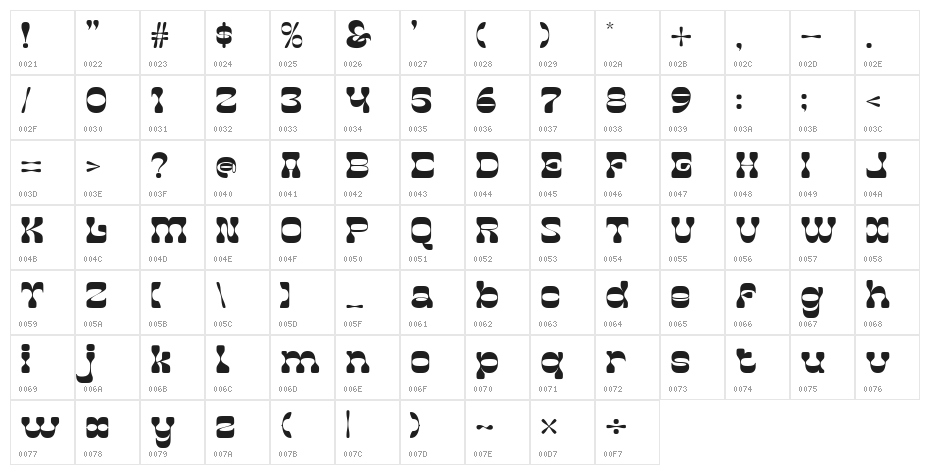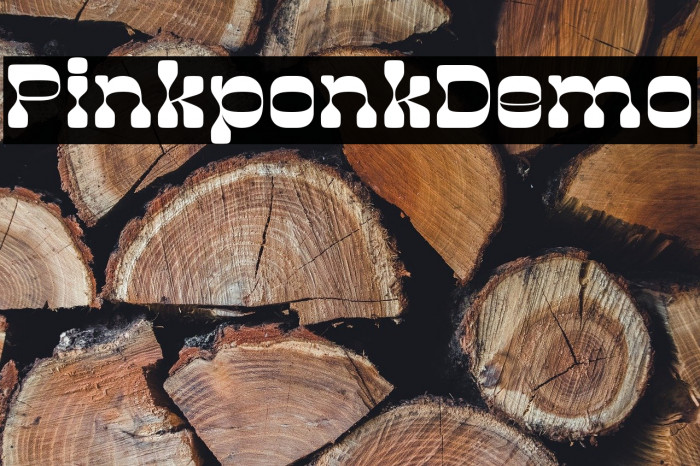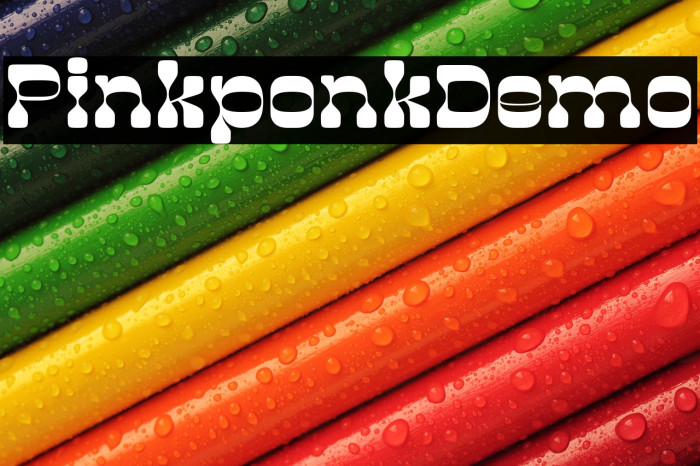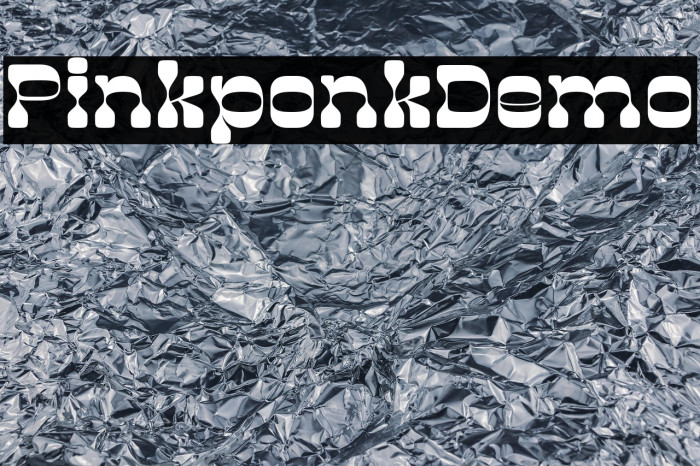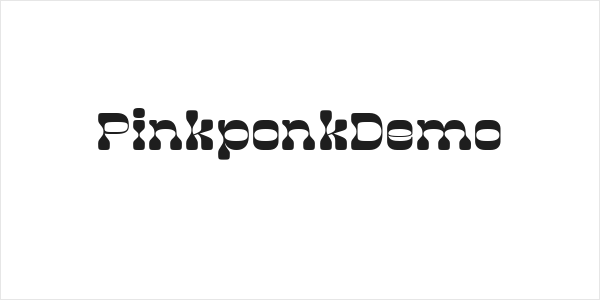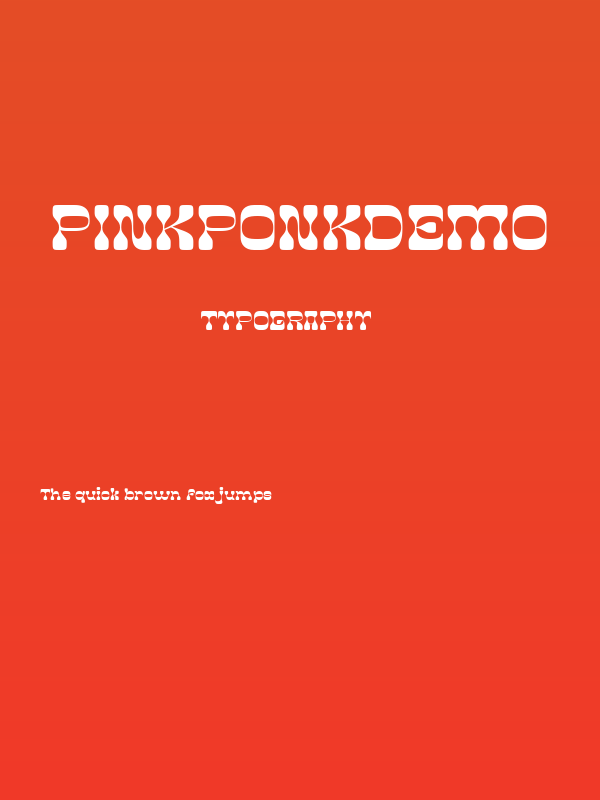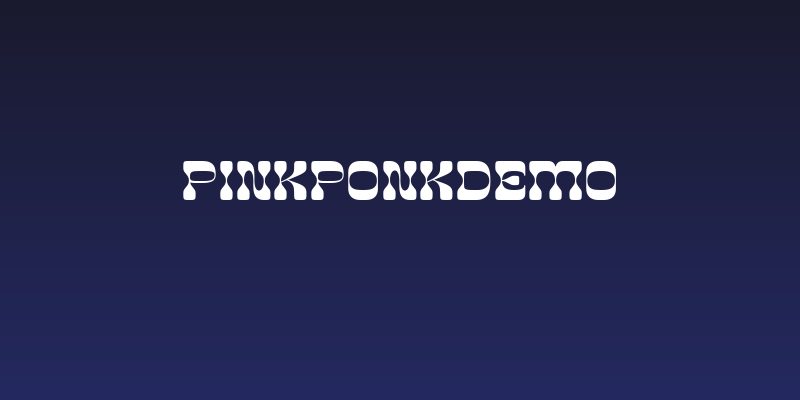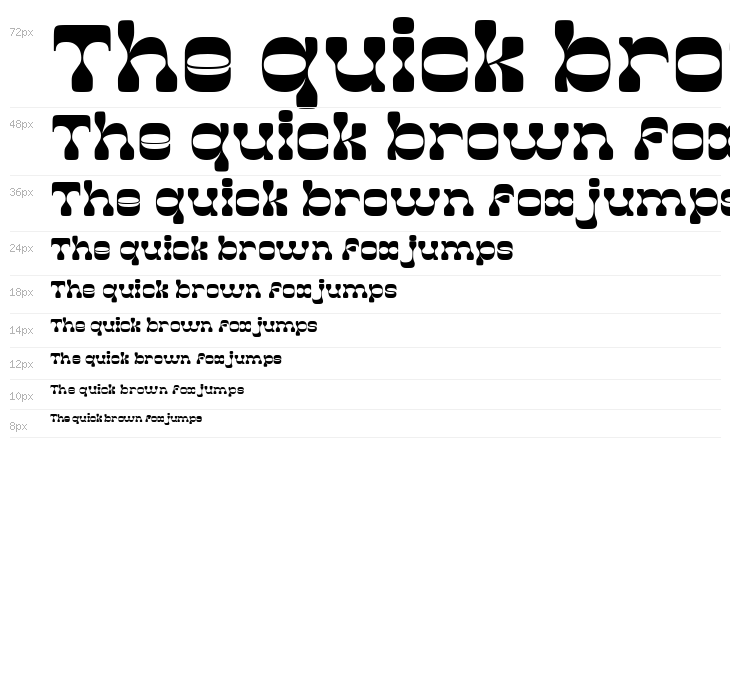
PinkponkDemo Font
| Gesamtstil | Playful, Whimsical, Modern |
| Vorgeschlagene Projekte | Ideal for children's books, playful branding, party invitations, or any project requiring a fun and eye-catching typeface. |